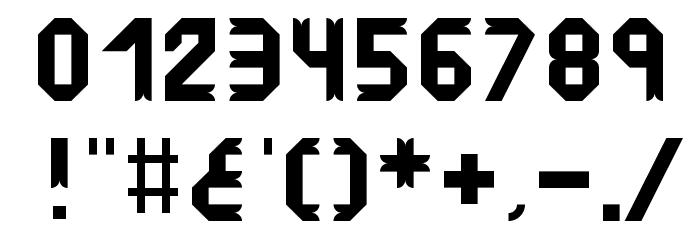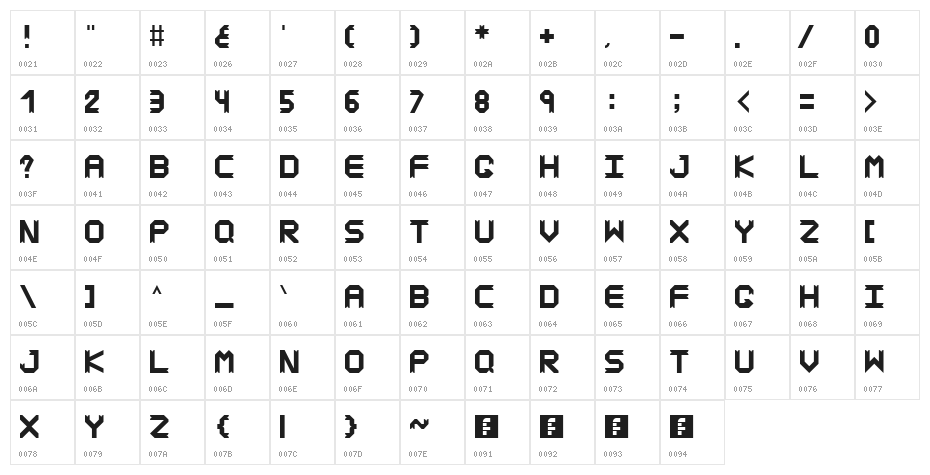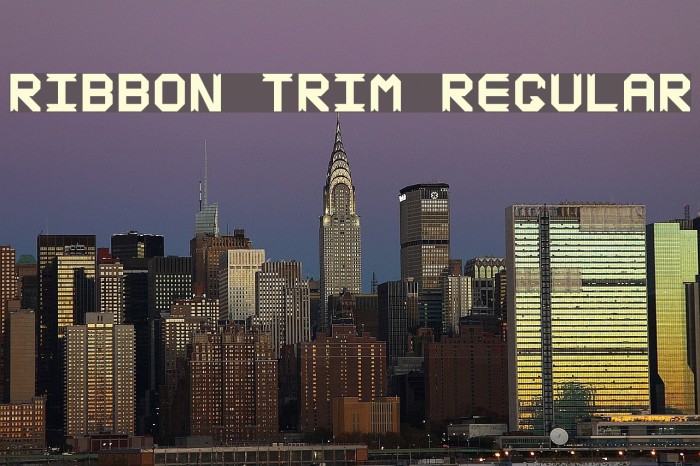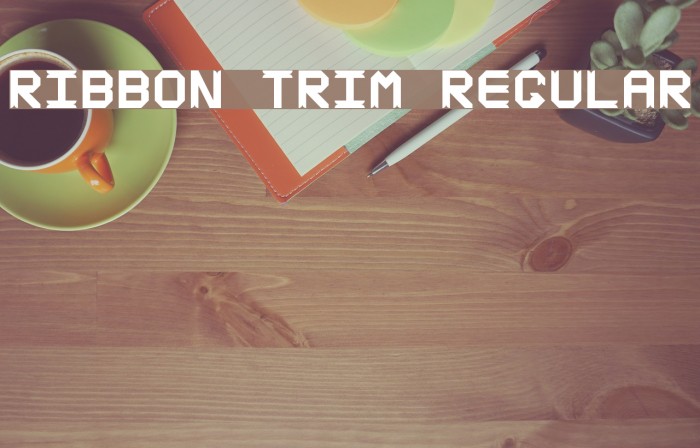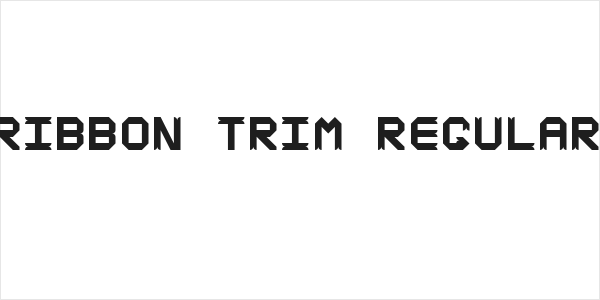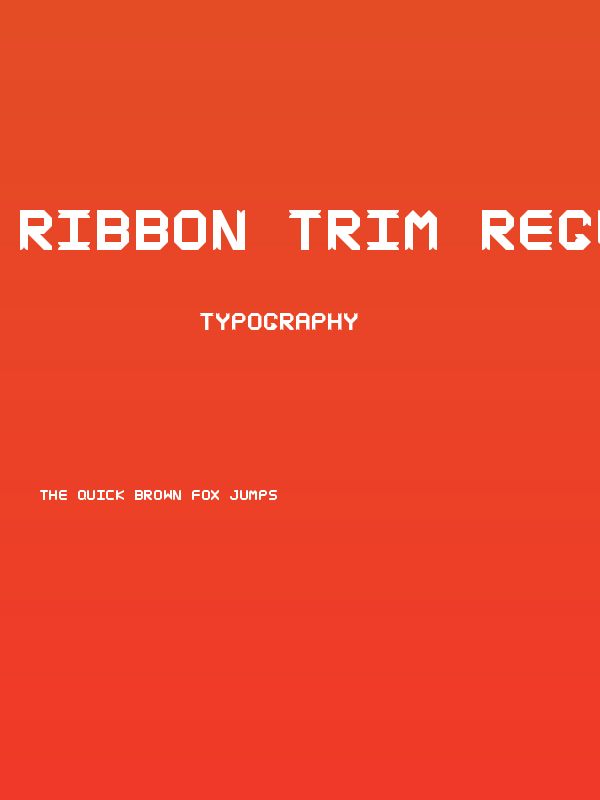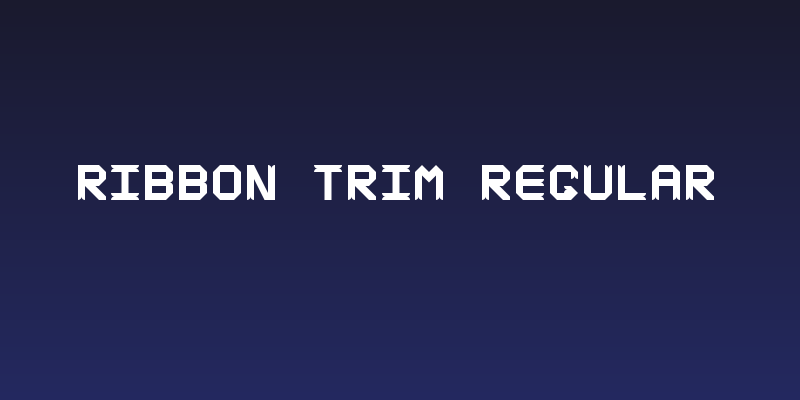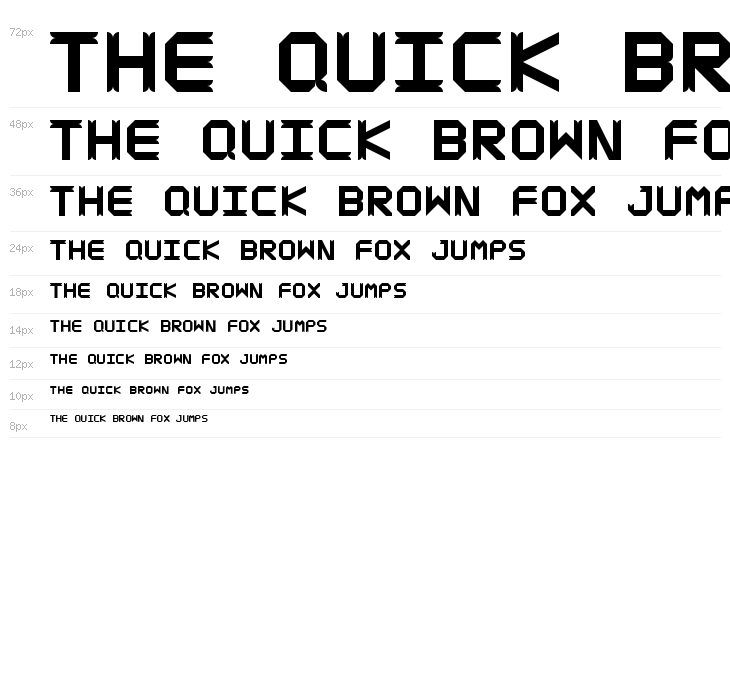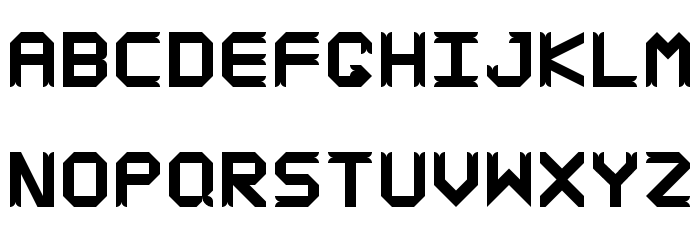
ribbon trim Regular Font
ribbon trim Regular Description
This font features a bold and geometric design with sharp, angular edges and a distinct ribbon-like appearance. The characters are constructed with a series of straight lines and sharp angles, giving them a modern and edgy look. The uppercase and lowercase letters maintain a consistent style, with a uniform width and height that creates a cohesive appearance. The numerals and special characters follow the same design principles, ensuring a harmonious overall look. This font's unique style makes it stand out, making it suitable for projects that require a bold and eye-catching typeface.
| Proposed Projects | Ideal for branding, poster design, headlines, and any project needing a striking and modern typeface. |